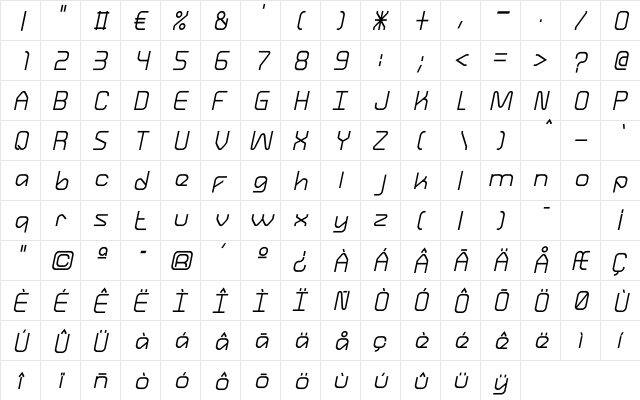
Canaletto Thin
Design Context for Canaletto Typeface
Canaletto is a composed and adaptable typeface that performs quietly and consistently across a wide range of design contexts. The delicate stroke weight brings airiness and refinement to layouts.